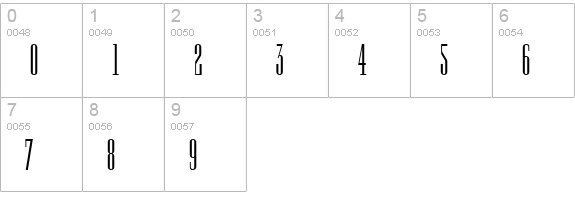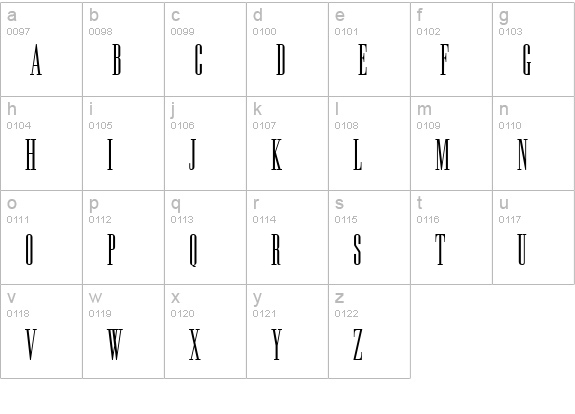
Long Tall Sally EEN Plain font is a sleek and modern typeface perfect for creating eye-catching designs. With its tall and slender letterforms, this font adds a sense of elegance and sophistication to any project. The clean lines and simple design of Long Tall Sally EEN Plain make it versatile and suitable for a wide range of applications, from branding to editorial design. Best of all, Long Tall Sally EEN Plain font is available for free download at FontsMarket.com. You can easily add this stylish font to your collection and start using it in your projects right away. Don't miss out on the opportunity to enhance your designs with this beautiful and versatile typeface. Download Long Tall Sally EEN Plain font today and take your creativity to the next level!